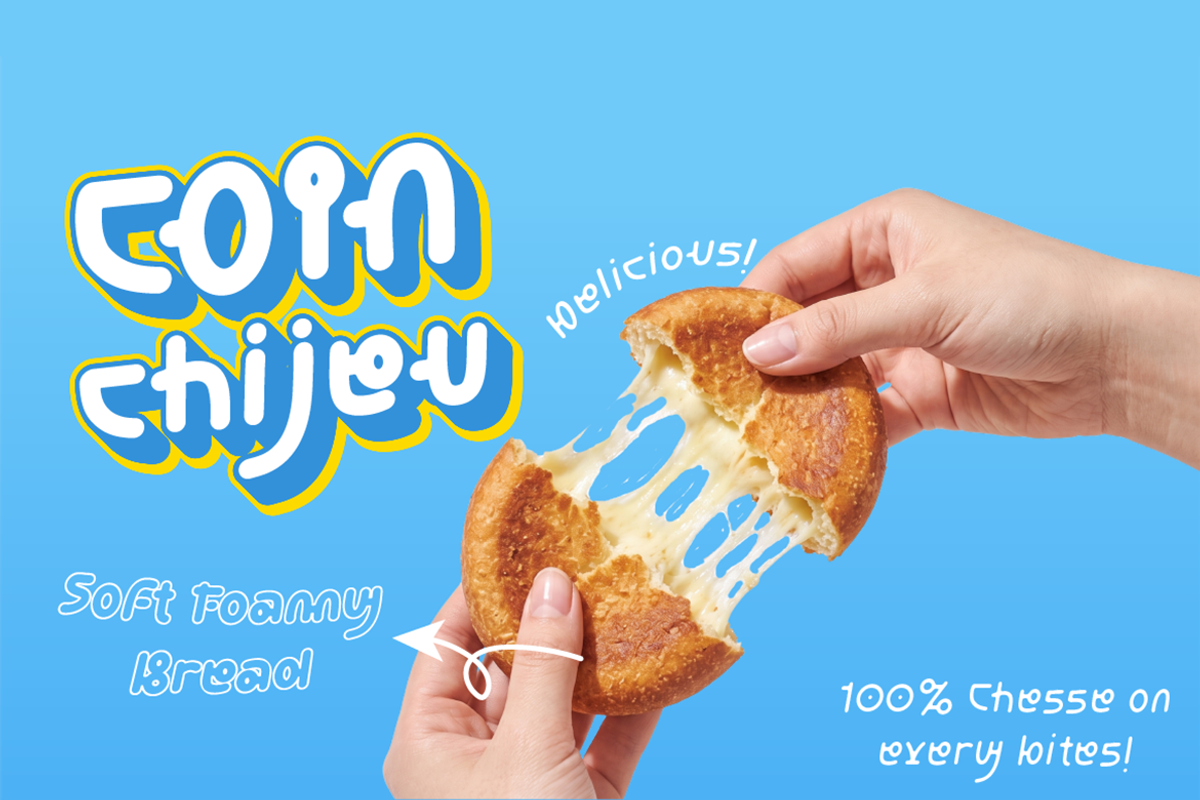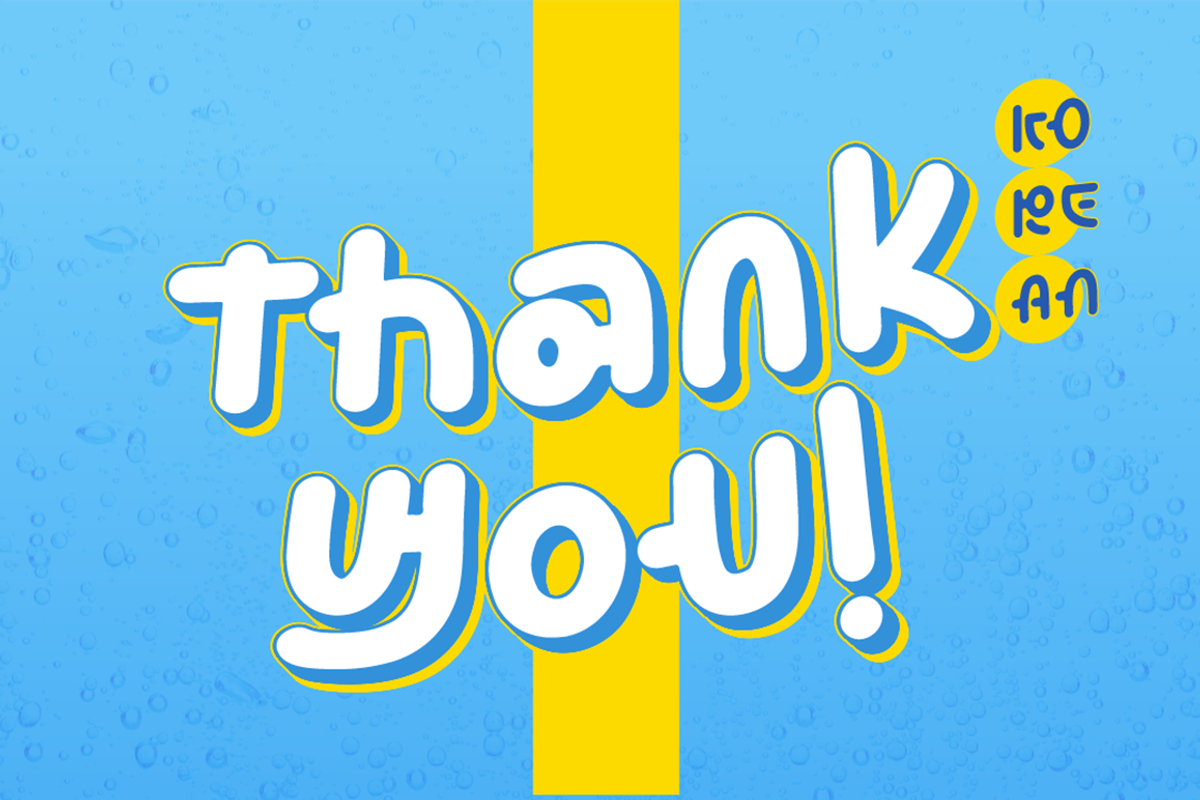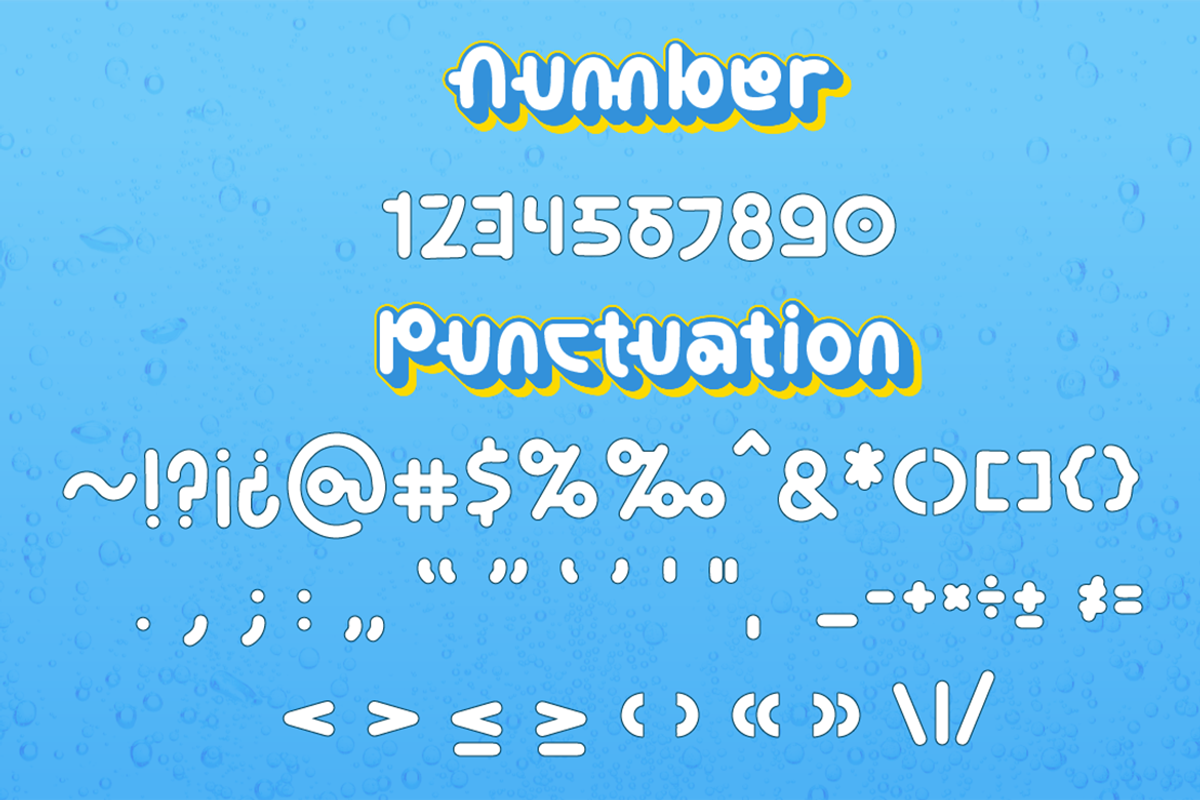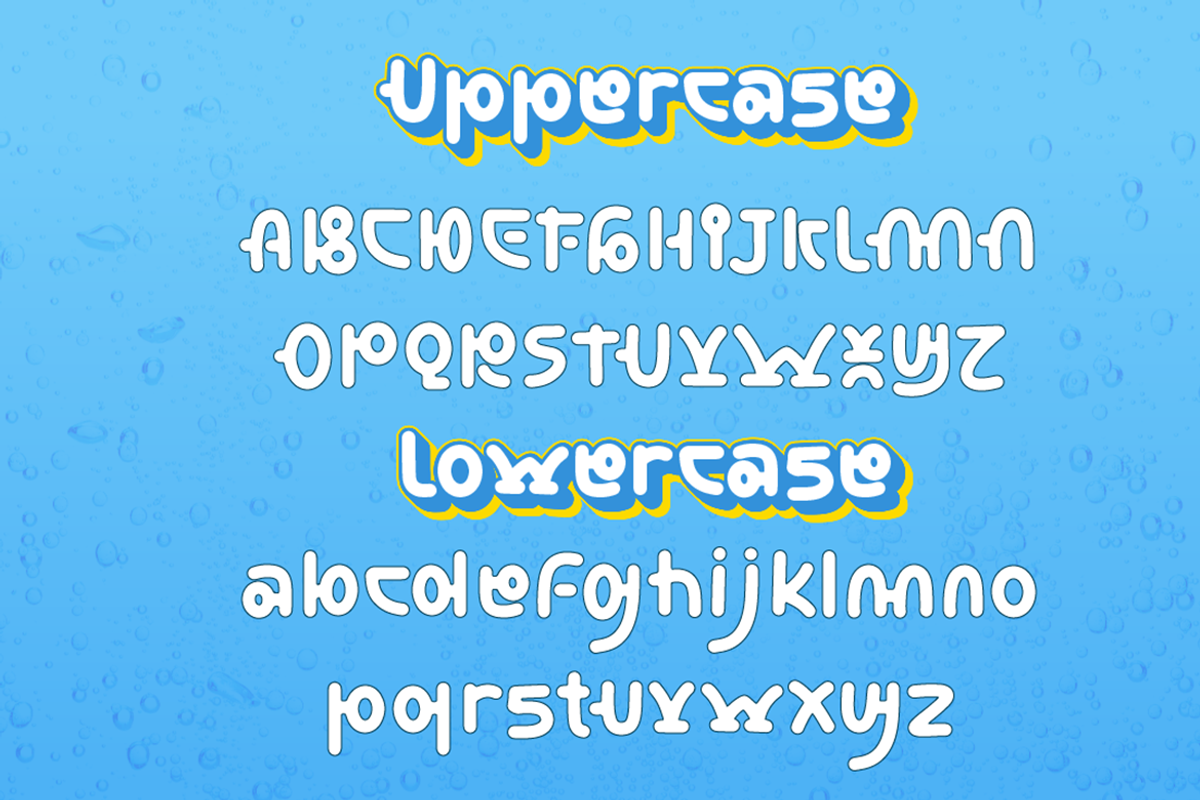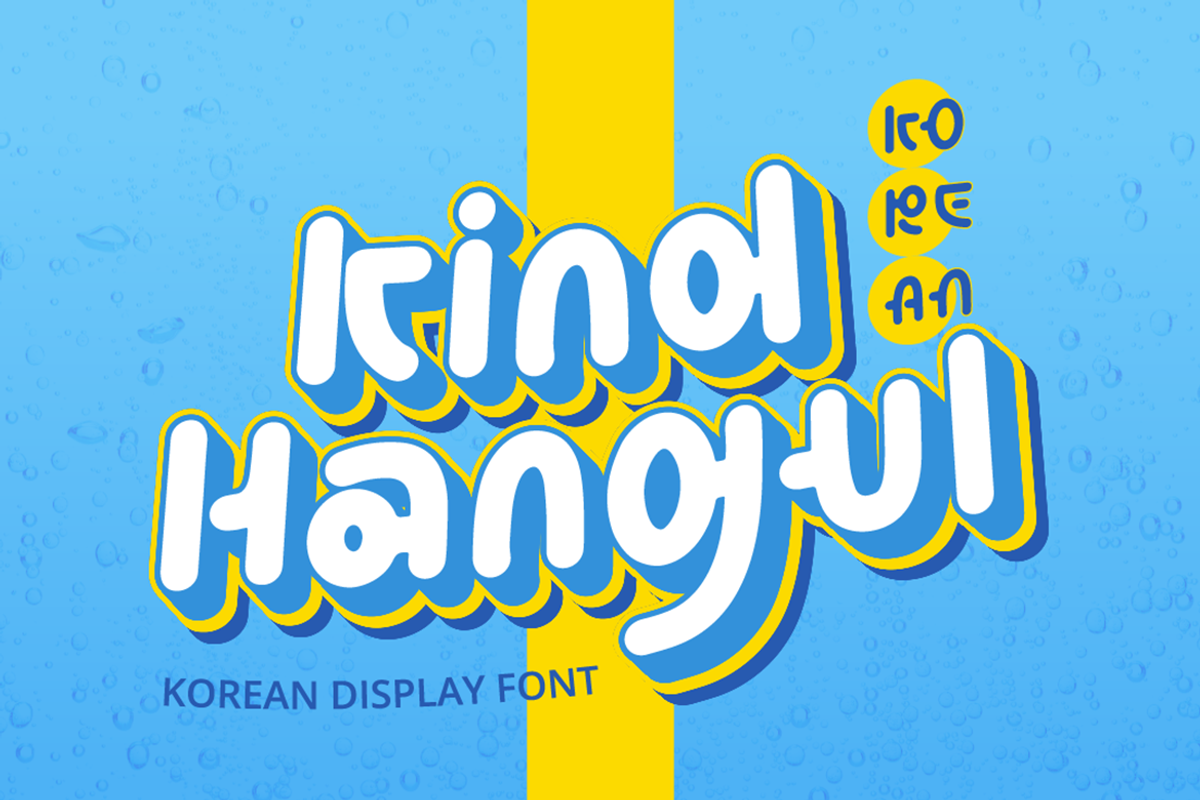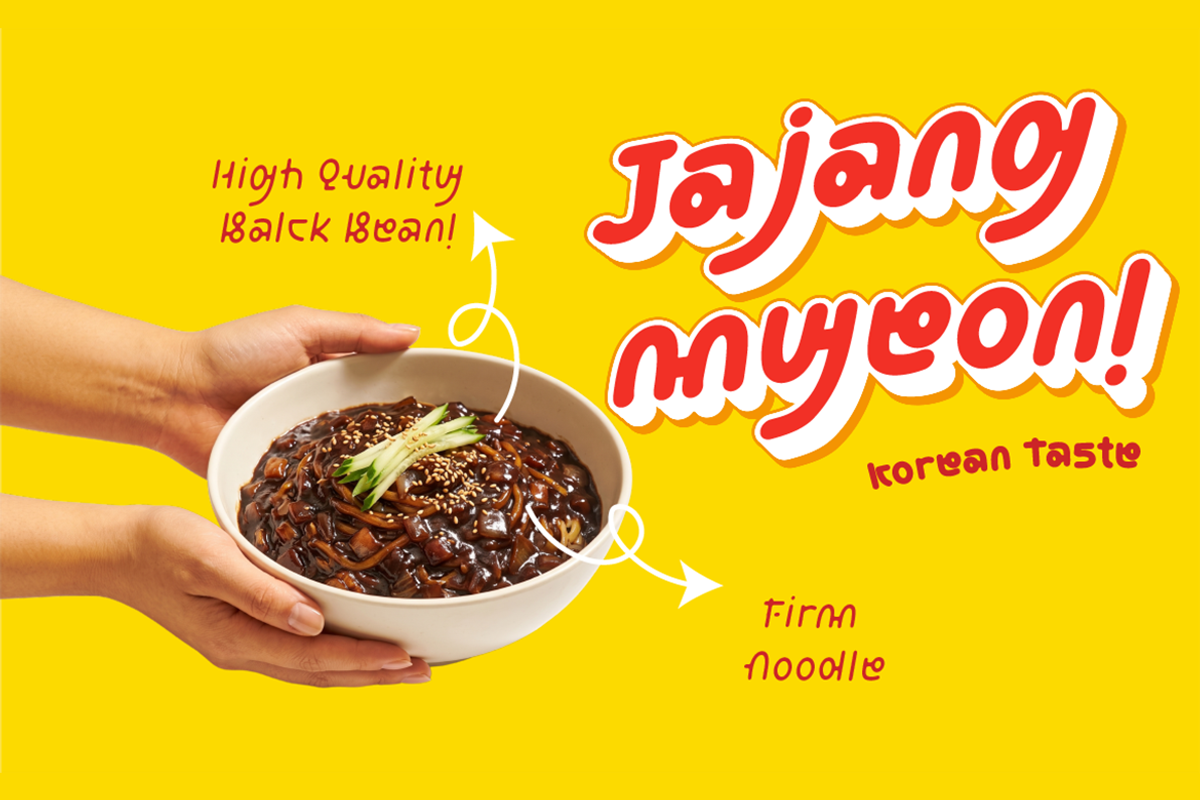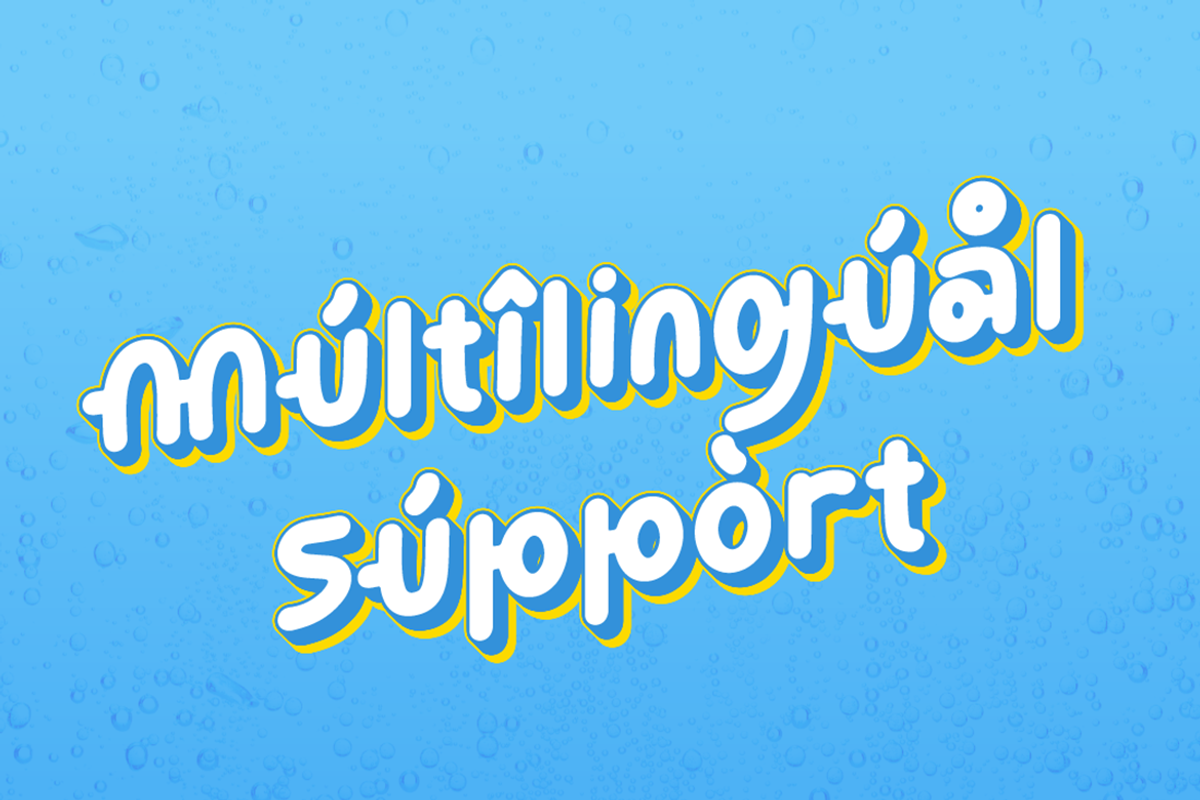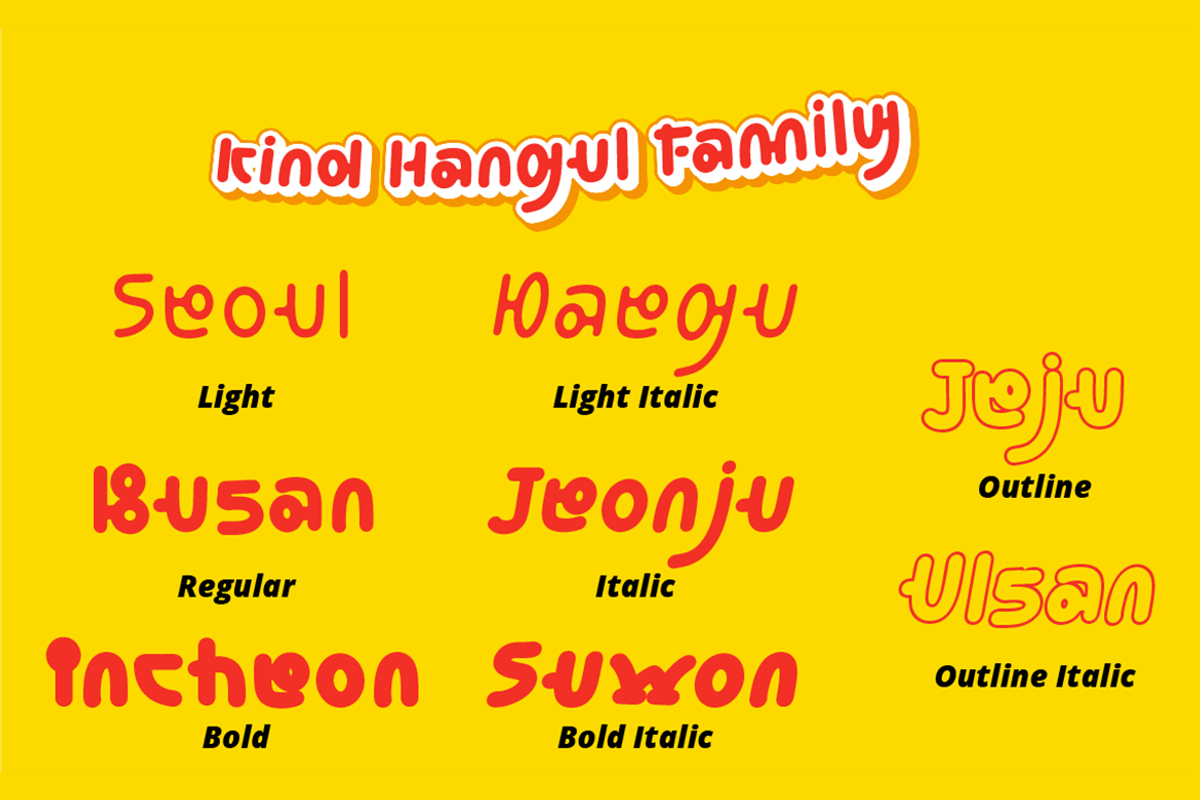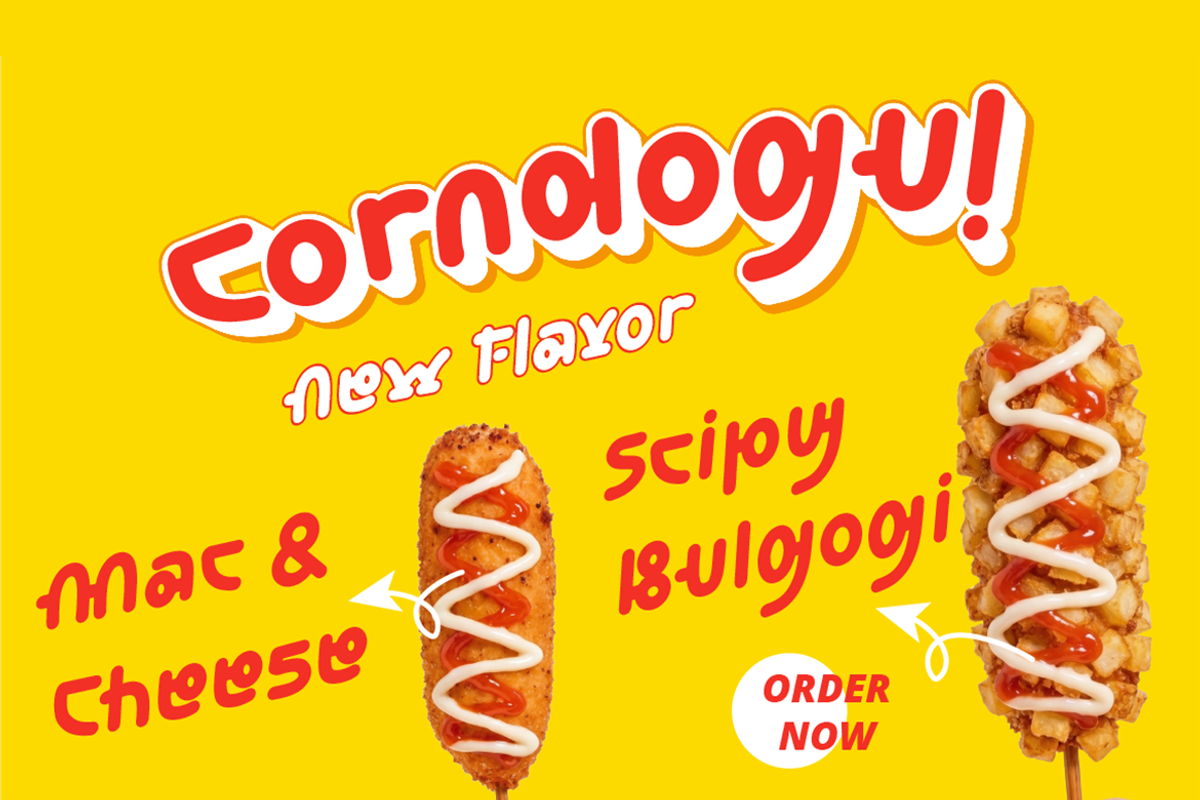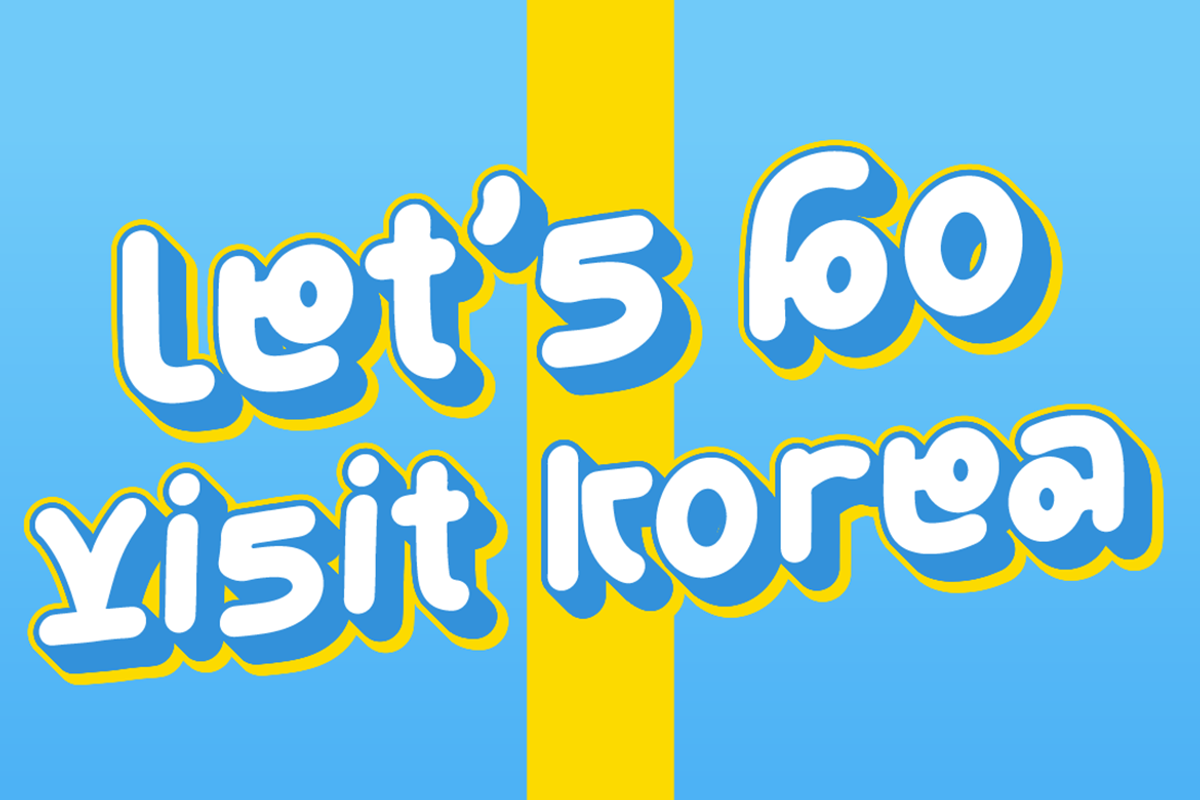
Kind Hangul — Korean Display Font
Kind Hangul borrows the rounded, blocky rhythm of Korean lettering and turns it into a playful Latin display font.
Thick bubble strokes and soft curves give every word a bouncy, K-culture feel that suits food packaging, street signage, and travel branding alike.
The family packs eight styles: Regular, Italic, Light, Light Italic, Bold, Bold Italic, Outline, and Outline Italic, so one purchase covers headlines, body accents, and outlined badge text.
Korean street food branding and menu boards, Asian bakery and dessert packaging, K-food delivery app graphics, Korean restaurant signage and specials, Korea travel and tourism campaigns, K-culture social media content and event posters, and bubble tea or snack brand logos with a playful Korean-inspired look.